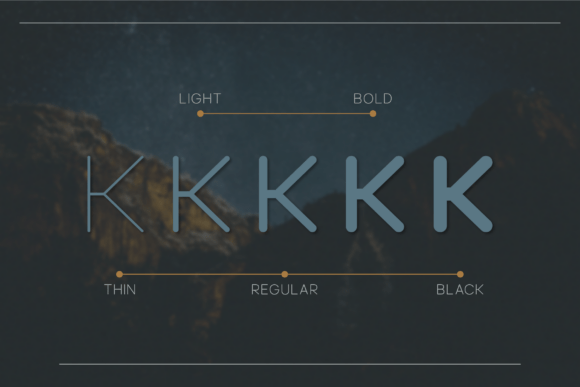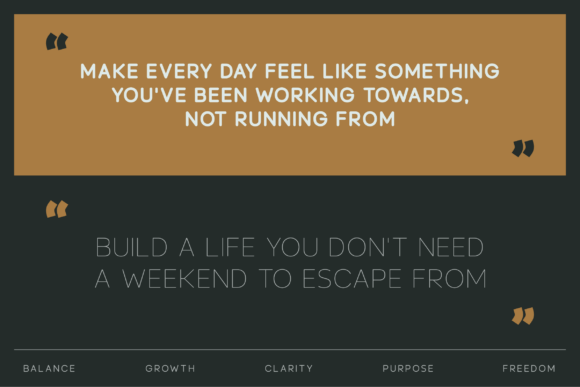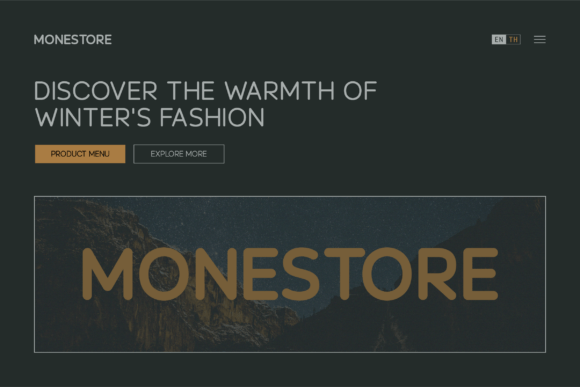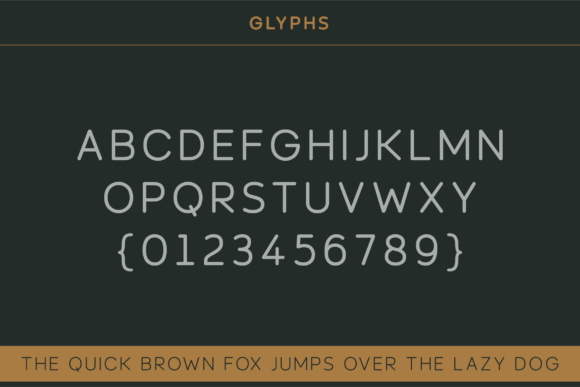
Introducing Authortunes Rounded: The Modern All-Caps Sans Serif Font for Creative Projects
In the world of typography, fonts play a crucial role in shaping the visual identity of a brand, product, or creative project. With the numerous font options available, finding the perfect one that balances clarity, warmth, and personality can be a daunting task. However, if you’re looking for a modern all-caps sans serif font that ticks all the right boxes, look no further than Authortunes Rounded.
Design and Features
Authortunes Rounded is a thoughtfully designed font family that boasts soft-rounded edges and sleek, geometric construction. This unique combination gives the font a warm and friendly feel while maintaining a clean and modern aesthetic. The font family consists of five versatile weights: Thin, Light, Regular, Bold, and Black, allowing designers to achieve a wide range of visual effects and moods.
One of the standout features of Authortunes Rounded is its exceptional legibility. The font’s carefully crafted letterforms ensure that even at smaller sizes, the text remains clear and easy to read. This makes it an excellent choice for body text, headlines, and titles. Additionally, the font’s aesthetic balance ensures that it looks great in various contexts, from digital screens to print materials.
Perfect for Designers, Crafters, and Brand Creators
Authortunes Rounded is specifically designed to help designers, crafters, and brand creators achieve a clean yet friendly visual identity. The font’s versatility and range of weights make it suitable for a wide range of applications, including:
- Logo design: Create a bold and confident logo that stands out with Authortunes Rounded’s sleek and modern design.
- Packaging design: Add a touch of sophistication and elegance to your packaging with this beautiful font.
- Social media visuals: Elevate your social media presence with eye-catching graphics and typography that grab attention.
- Headlines and titles: Make a lasting impression with high-impact headlines and titles that exude confidence and style.
Why Choose Authortunes Rounded?
So, what sets Authortunes Rounded apart from other fonts? Here are just a few reasons why designers and crafters should consider adding this font to their arsenal:
- Unique blend of warmth and clarity: Authortunes Rounded strikes the perfect balance between warmth and clarity, making it suitable for a wide range of applications.
- Exceptional legibility: The font’s carefully crafted letterforms ensure that text remains clear and easy to read, even at smaller sizes.
- Versatile weights: With five weights to choose from, designers can achieve a range of visual effects and moods.
- Clean and modern aesthetic: Authortunes Rounded boasts a sleek and modern design that looks great in various contexts.
In conclusion, Authortunes Rounded is an exceptional font family that offers a unique blend of warmth, clarity, and personality. With its soft-rounded edges, sleek geometric construction, and versatile weights, this font is perfect for designers, crafters, and brand creators looking to elevate their visual identity. Whether you’re building a logo, packaging design, social media visuals, or high-impact headlines, Authortunes Rounded is an excellent choice. So why wait? Discover the power of Authortunes Rounded and take your creative projects to the next level.
- Modern all-caps sans serif font family
- Soft-rounded edges and sleek geometric construction
- Five versatile weights: Thin, Light, Regular, Bold, and Black
- Exceptional legibility and aesthetic balance
- Suitable for a wide range of applications, including logo design, packaging design, social media visuals, and headlines